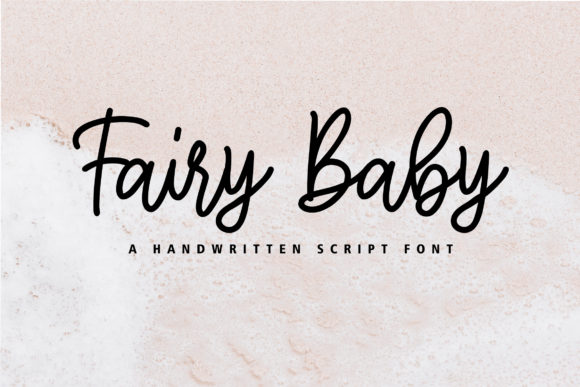
Journey into the realm of enchantment with Fairy Baby Font, a whimsical and heartwarming handwritten font that sparks the imagination.
With its delicate strokes and enchanting charm, Fairy Baby Font dances across the page like a playful fairy, leaving a trail of wonder and delight in its wake. Its graceful curves and elegant flourishes evoke a sense of magic, inviting you to embark on an adventure of creativity and self-expression.
As you explore the depths of this remarkable font family, you'll discover a world of possibilities that await your artistic touch. Whether crafting heartfelt wedding invitations that capture the essence of your love story, designing captivating stationary art that reflects your unique style, or creating eye-catching social media posts that ignite engagement, Fairy Baby Font is your trusted companion, transforming your words into works of art.
Step into the world of Fairy Baby Font, where dreams take flight and imagination knows no bounds. Let this font be your muse, guiding you on an enchanting journey of self-expression and creativity. Embrace the magic within you and let Fairy Baby Font bring your artistic visions to life.
1. Handwritten Elegance: Experience the beauty of genuine handwriting, with Fairy Baby Font's meticulously crafted strokes that mimic the natural flow and charm of pen on paper.
2. Versatile Charm: Fairy Baby Font effortlessly adapts to a symphony of design styles, from whimsical invitations to elegant branding projects. Its versatility knows no limits, making it the perfect choice for expressing your unique artistic vision.
3. Enchanting Details: Each character in Fairy Baby Font is adorned with enchanting details, from delicate flourishes to playful swashes. These intricate elements add a touch of magic to your designs, captivating your audience with their undeniable charm.
4. Effortless Legibility: Despite its playful nature, Fairy Baby Font maintains exceptional legibility, ensuring your messages are conveyed with clarity and impact. Your audience will appreciate the ease with which they can absorb your content, allowing your words to shine through.
5. Perfect for Text Books: Fairy Baby Font excels in the realm of text books, where its friendly and inviting personality shines through. Its gentle curves and generous spacing make reading a delightful experience, keeping your audience engaged from cover to cover.